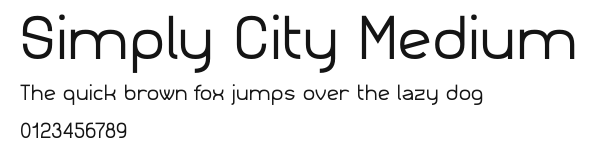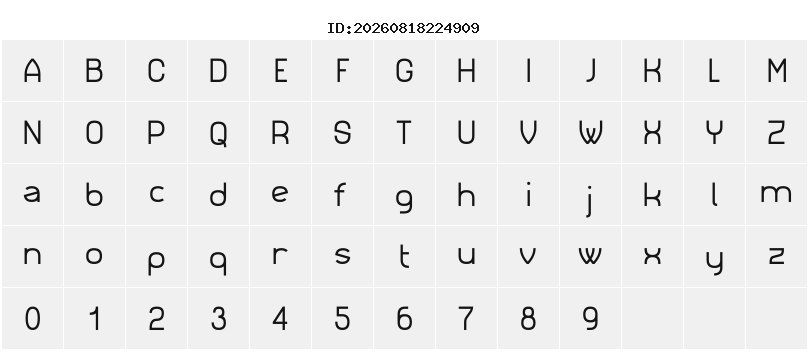
• Font Name: Simply City Medium
• Full Font Name: Simply City Medium
• Manufacturer: Vít Čondák
• Description: Simple font based on thin circles.
About Simply City Medium.ttf
Simply City Medium.ttf is a modern, elegant sans-serif font designed for ultimate readability and visual harmony. Perfect for branding, headlines, web design, and print materials.